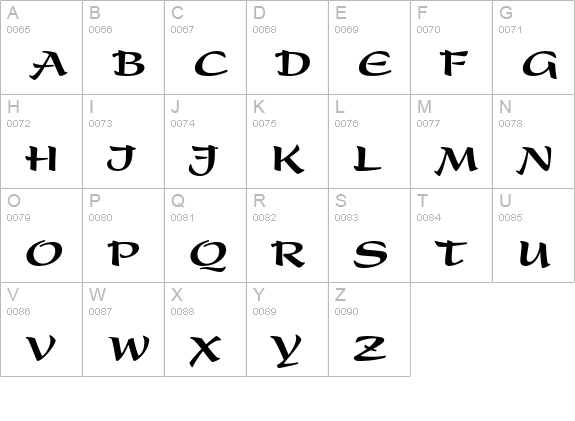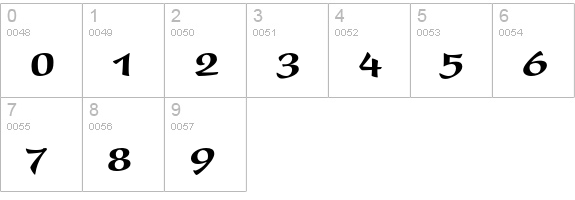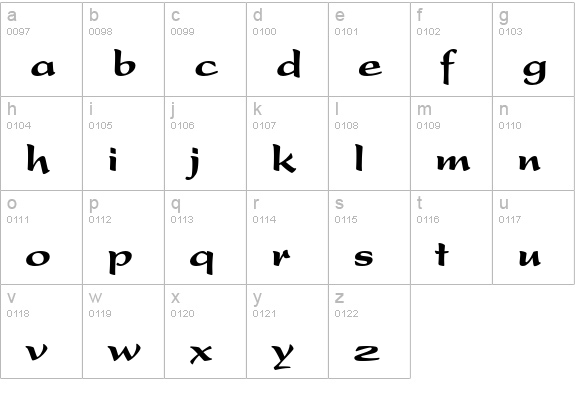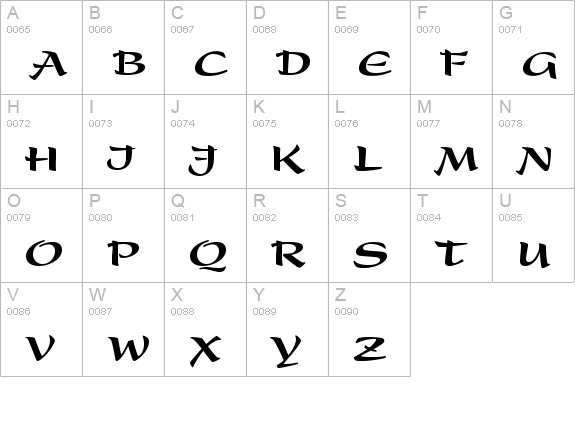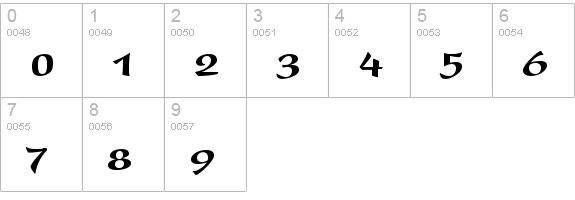
Present Black Font Details
Present Black font is a sleek and modern typeface that exudes sophistication and elegance. With its bold and striking appearance, this font is perfect for making a statement in your designs. The sharp edges and clean lines of Present Black font make it versatile and suitable for a wide range of projects, from branding to editorial design. The best part about Present Black font is that it is completely free to download at FontsMarket.com. Whether you're a professional designer or a hobbyist looking to spruce up your projects, this font is a fantastic choice. Don't miss out on the opportunity to elevate your designs with the timeless appeal of Present Black font, available for free download now.